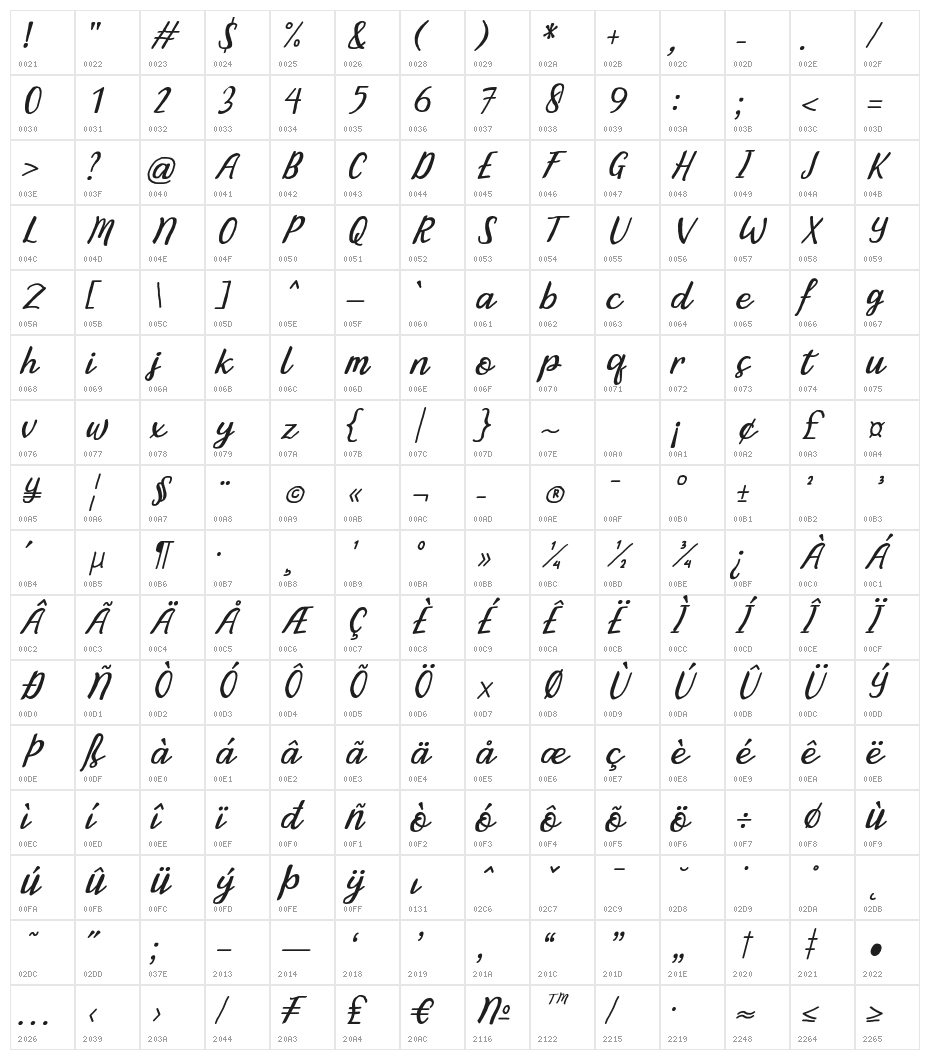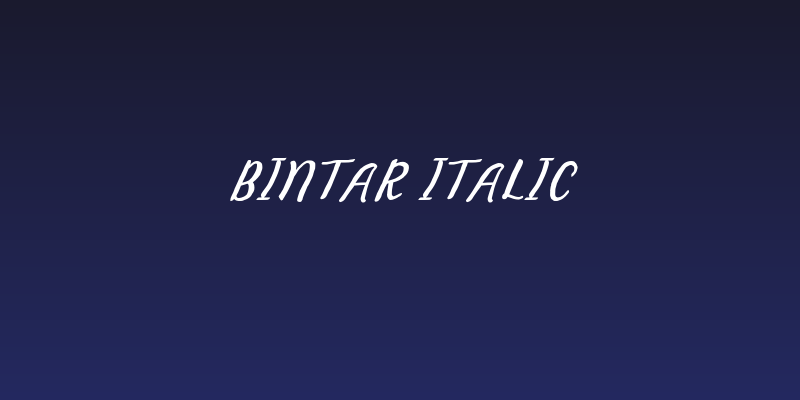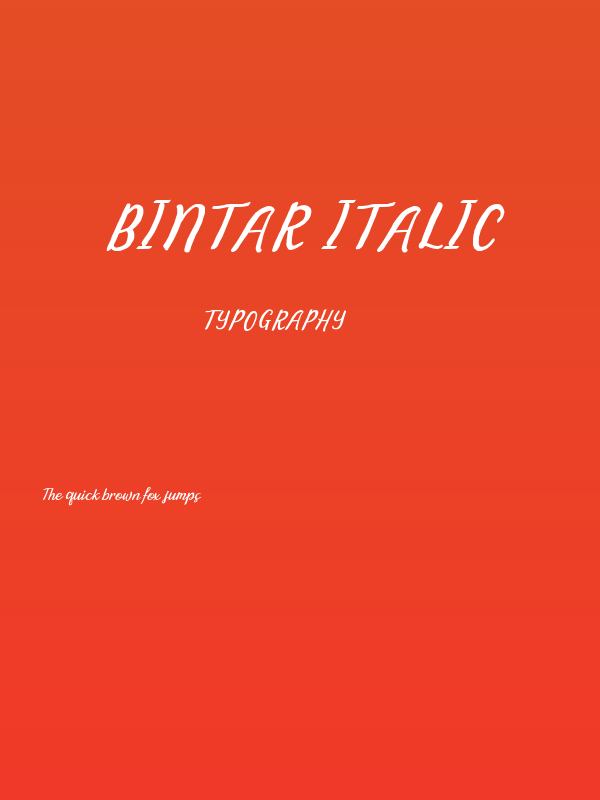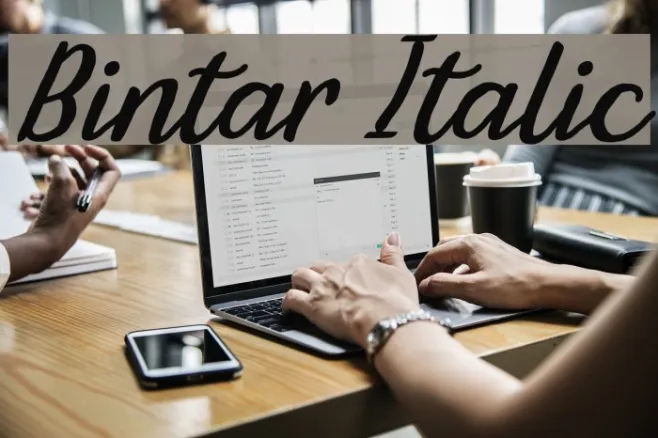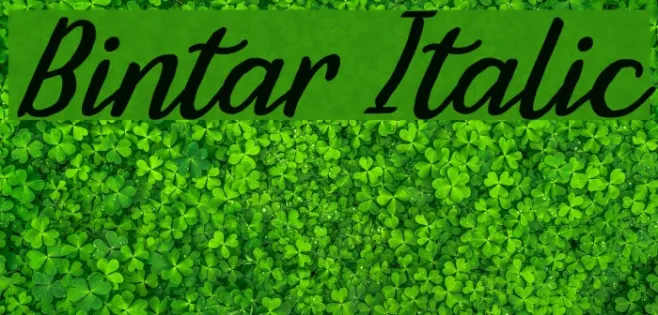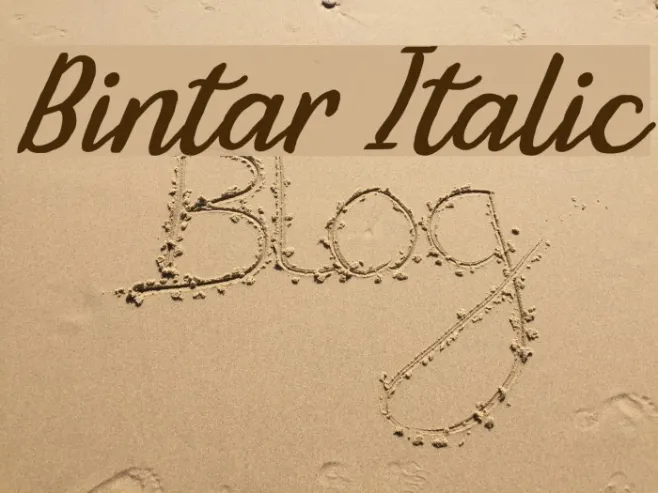
Bintar Italic Font
Bintar Italic Description
This font features a dynamic and fluid script style, characterized by its elegant and flowing letterforms. The characters have a slight slant, enhancing the italic nature of the font. The strokes are smooth and continuous, giving it a handwritten appearance. The uppercase letters are bold and prominent, while the lowercase letters maintain a consistent flow. Numerals and special characters are designed to complement the overall script style, maintaining readability and aesthetic appeal.
| Overall Style | Elegant, Handwritten |
| Proposed Projects | Ideal for wedding invitations, greeting cards, personal branding, and elegant logo designs. |